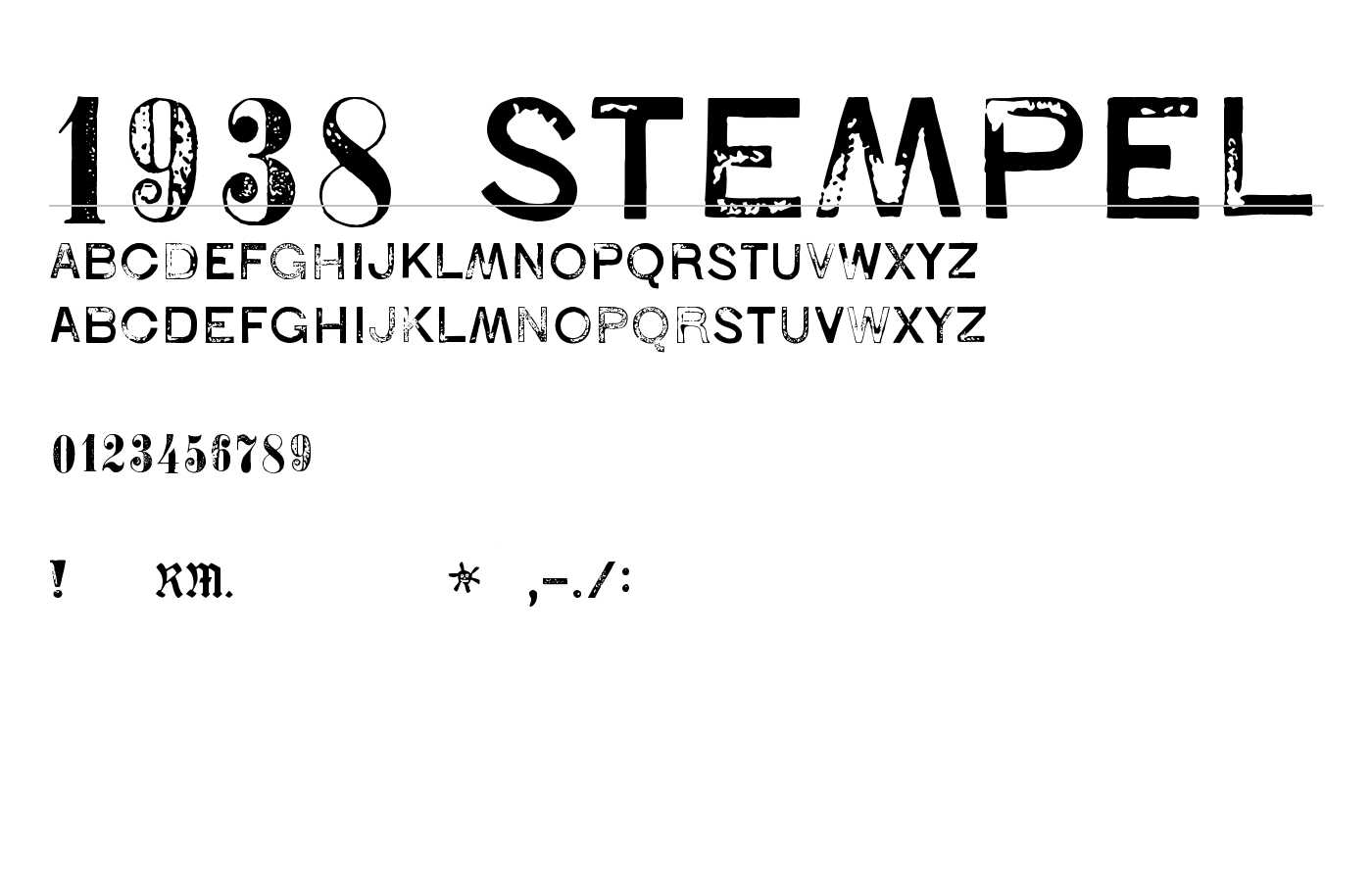
1938 STeMPEL is a bold, vintage-inspired serif font with a distressed, stamped texture that gives it a rugged, industrial feel. Its strong, condensed letterforms combined with uneven wear and tear details make it perfect for designs seeking an authentic, nostalgic, or gritty look, ideal for posters, branding, or editorial projects that want to invoke a sense of history and bold impact.
1938 STeMPEL Font
About 1938 STeMPEL Font